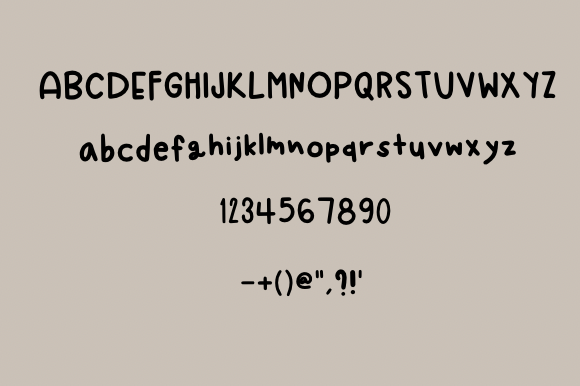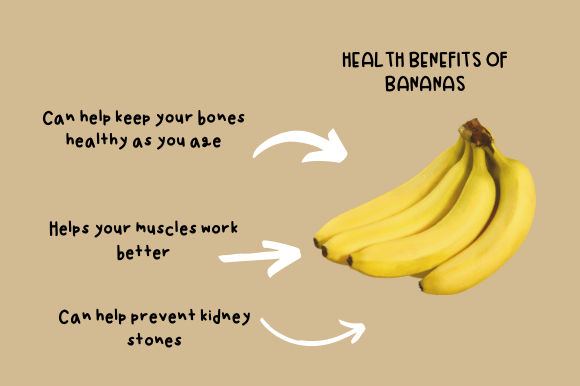
Banana Font
About Banana Font
Banana is a fun, bold, and cheerful handwriting font. Its chubby characters and lighthearted nature make this typeface a must-have in your fonts library! Use it to express your creative and playful design ideas.